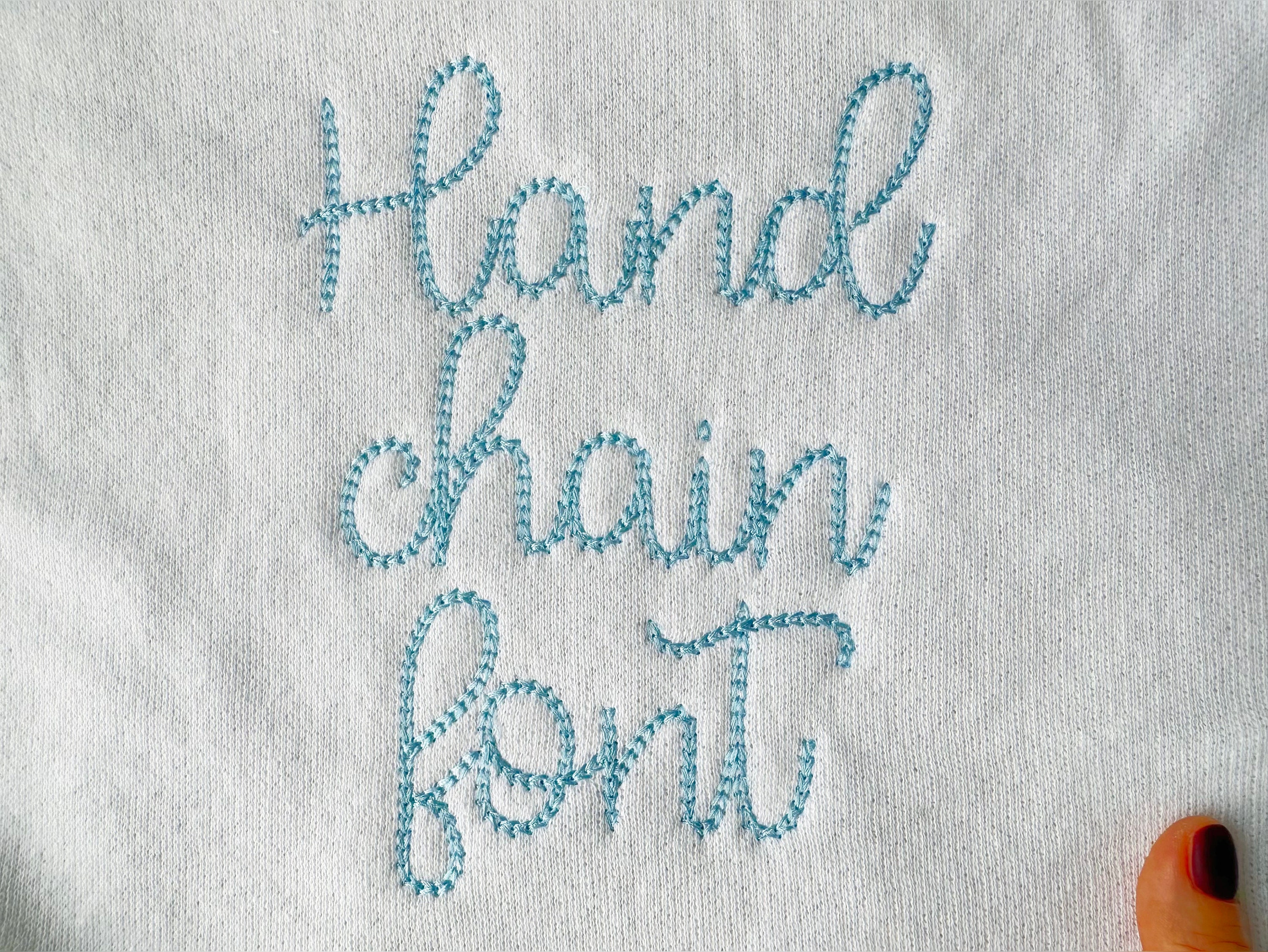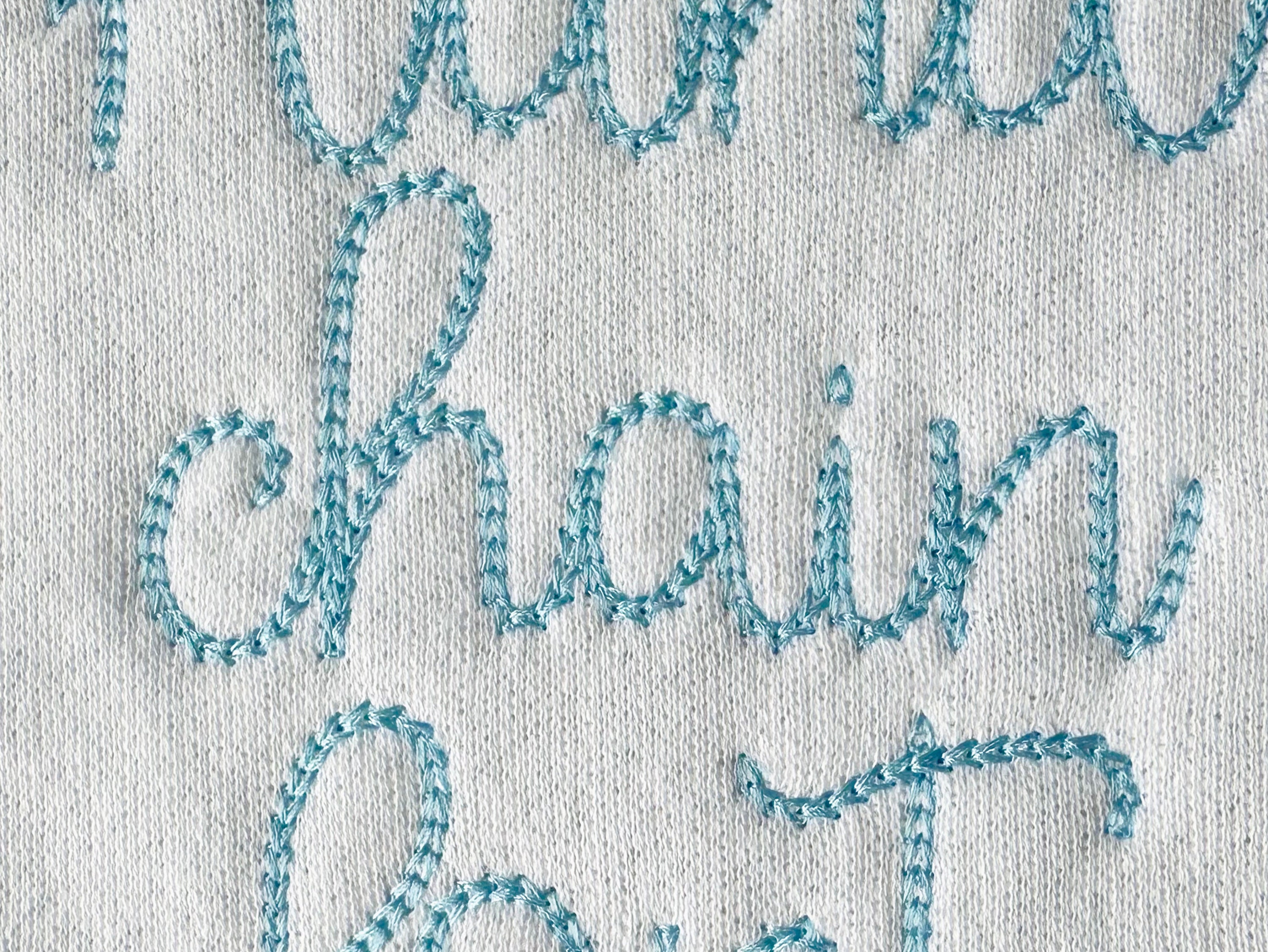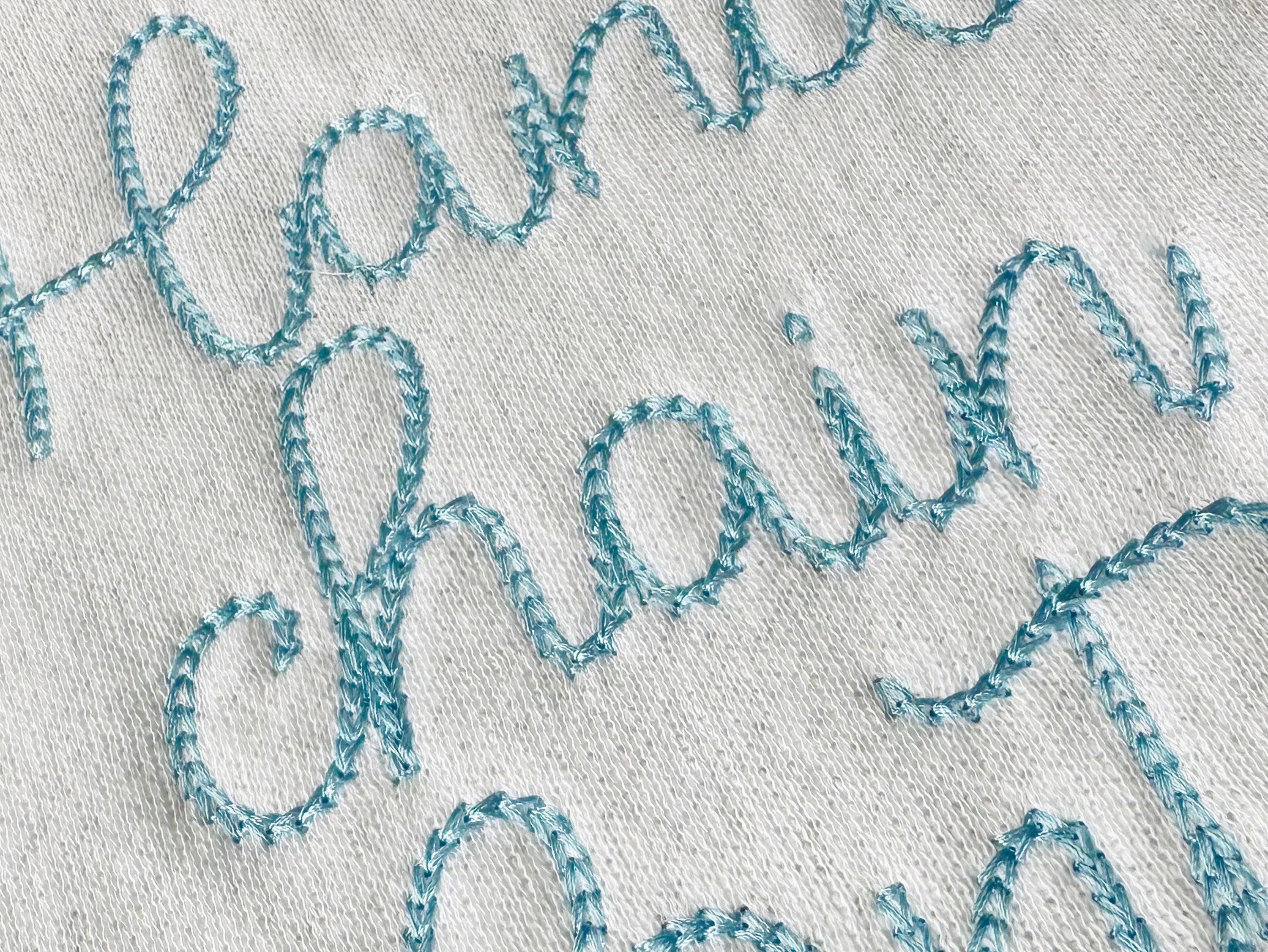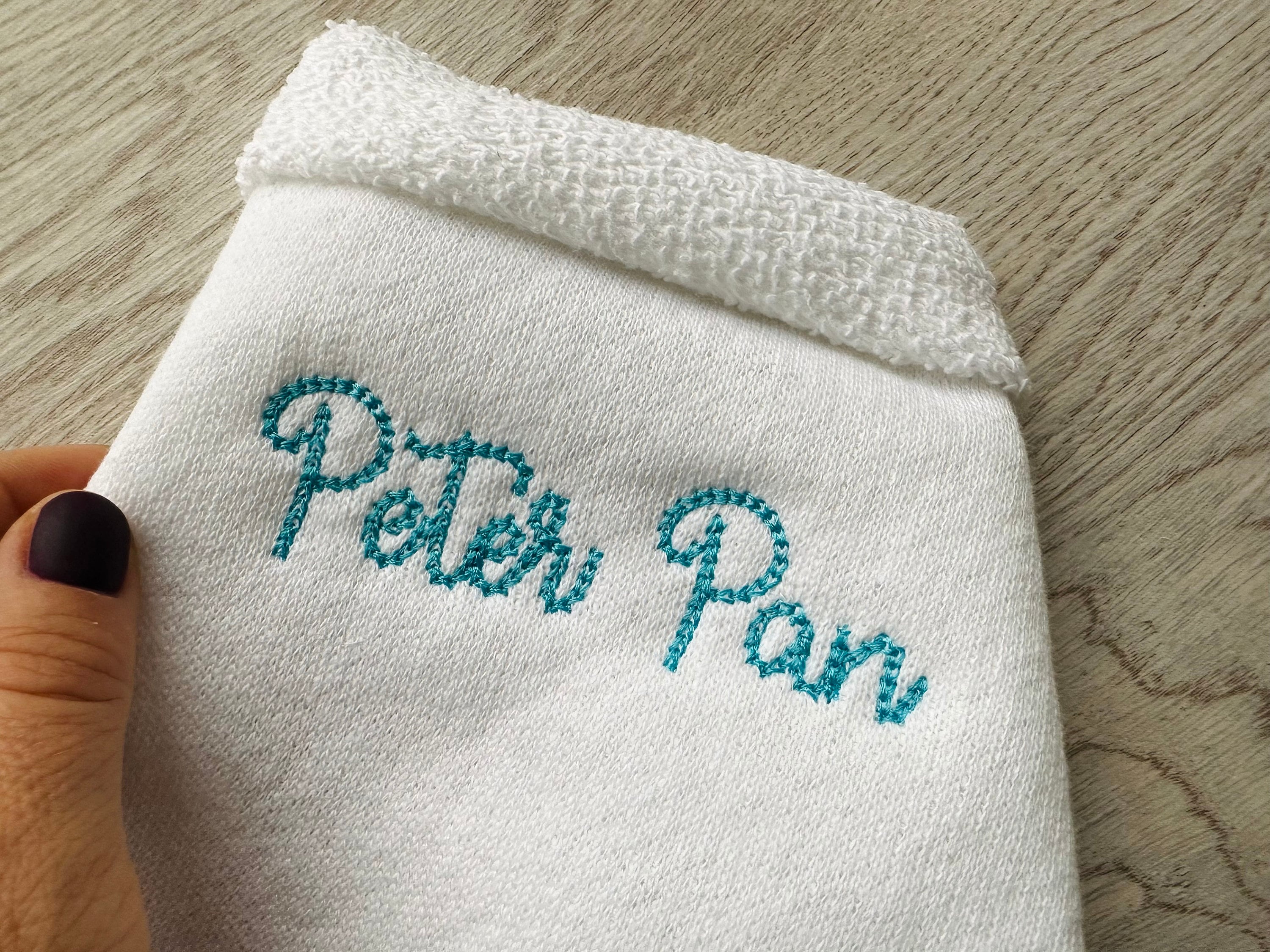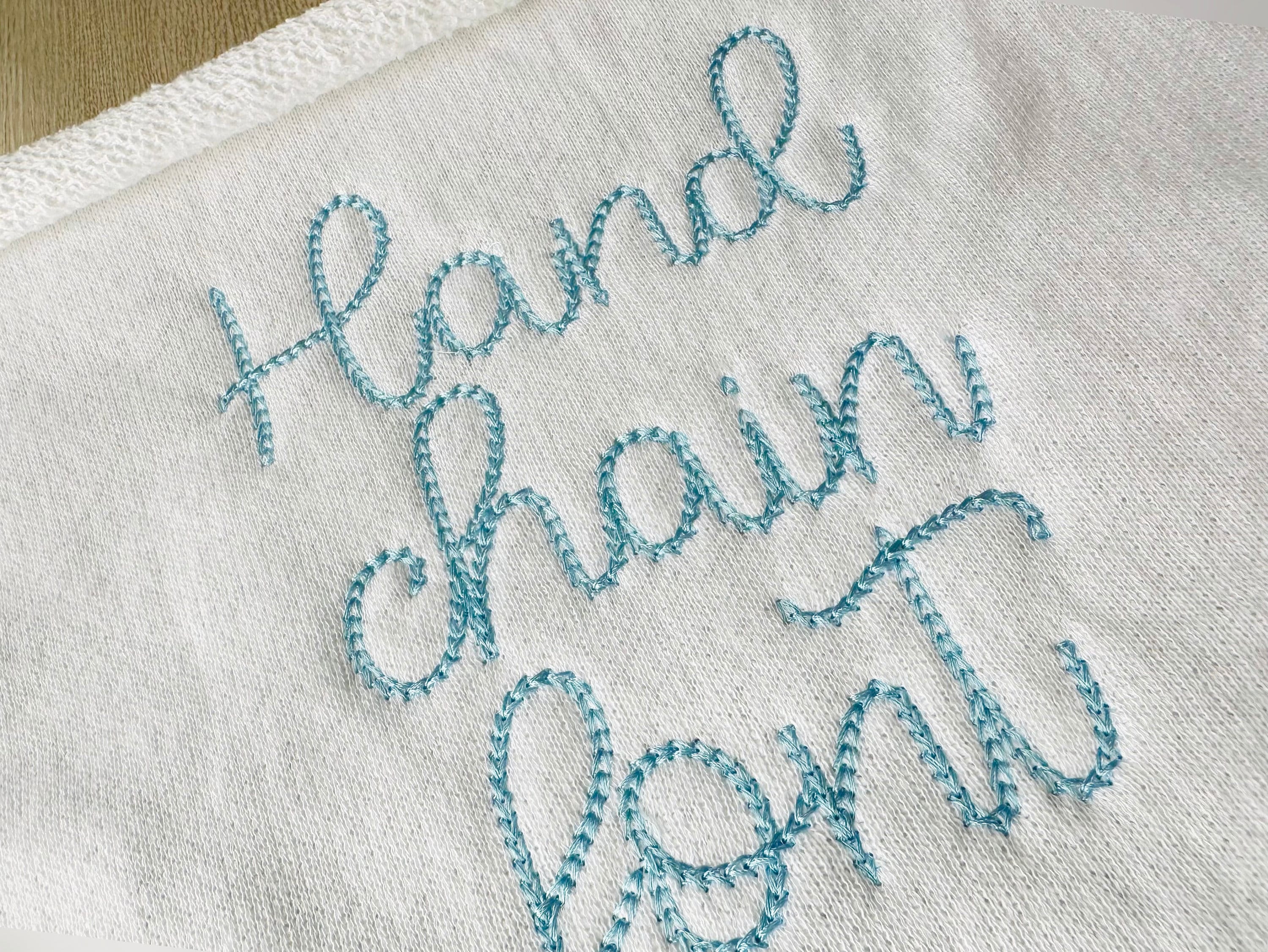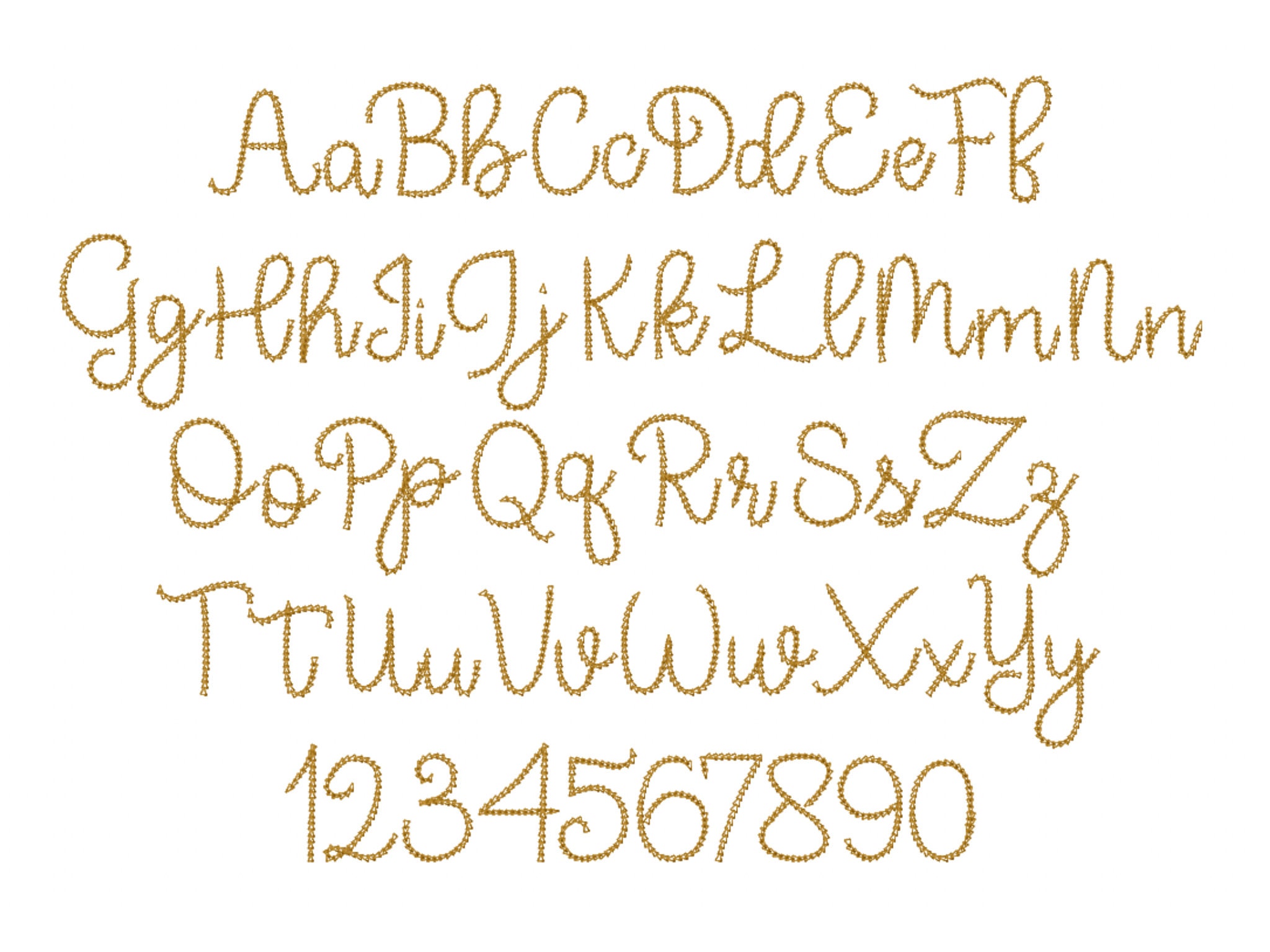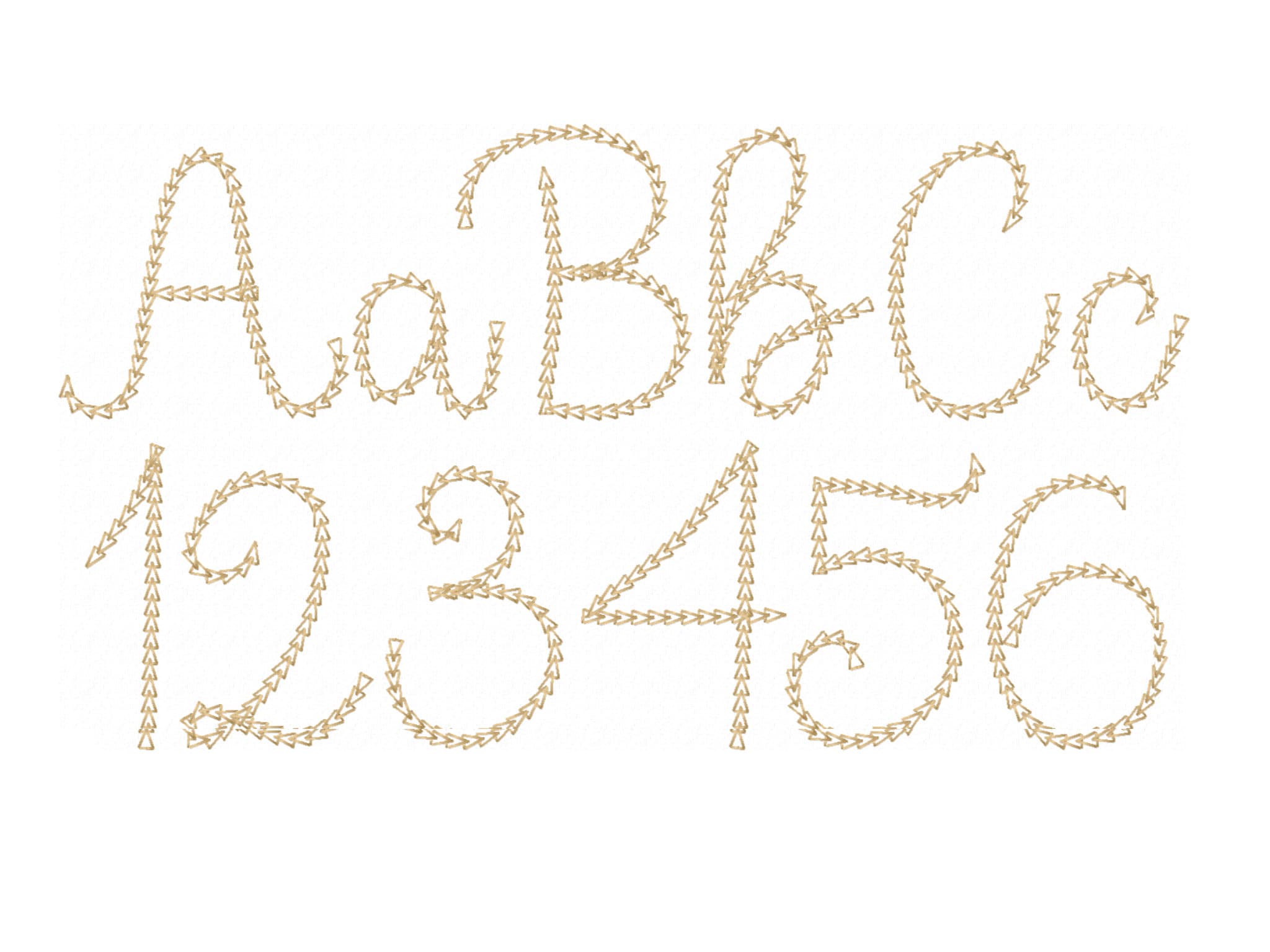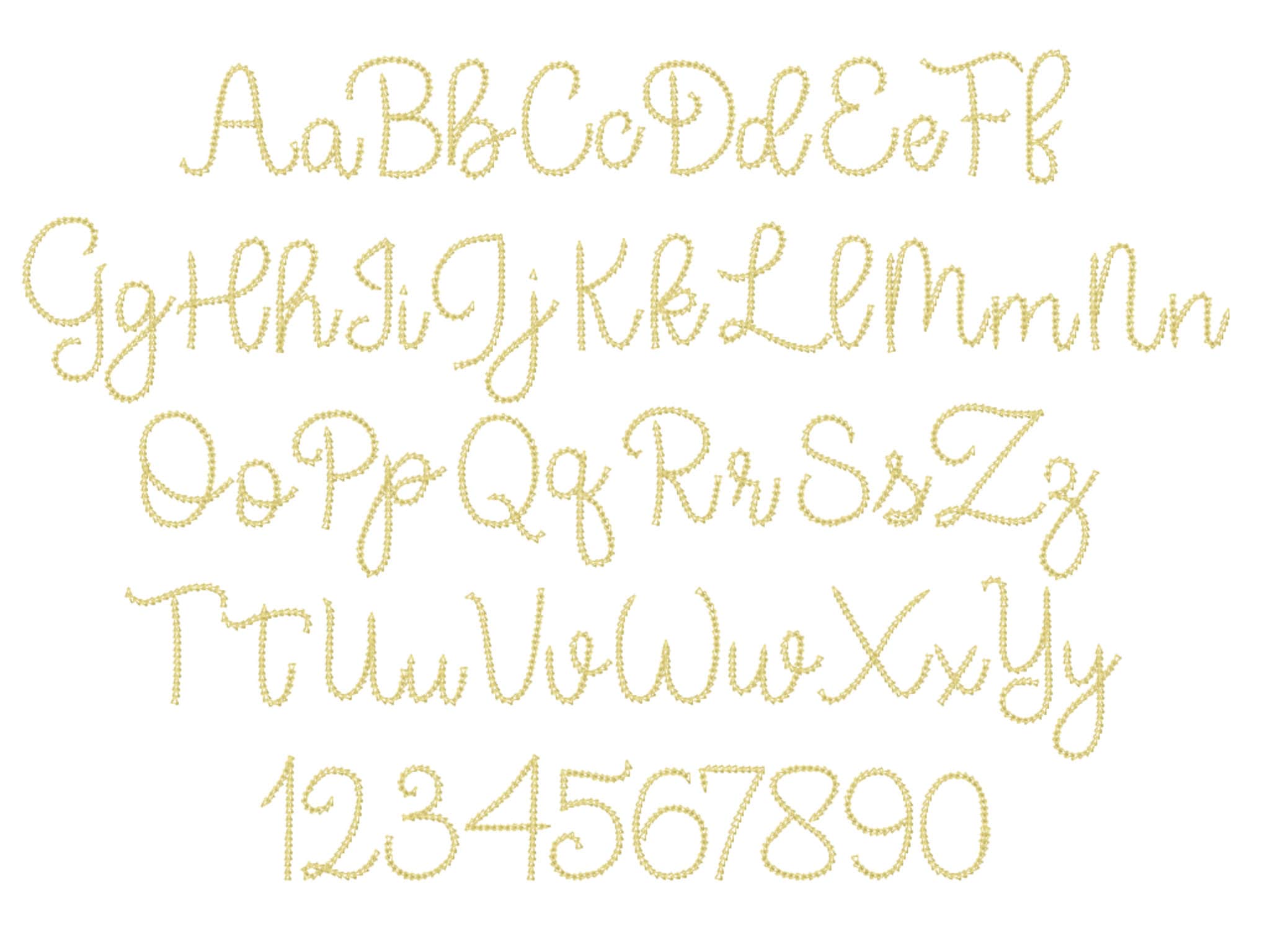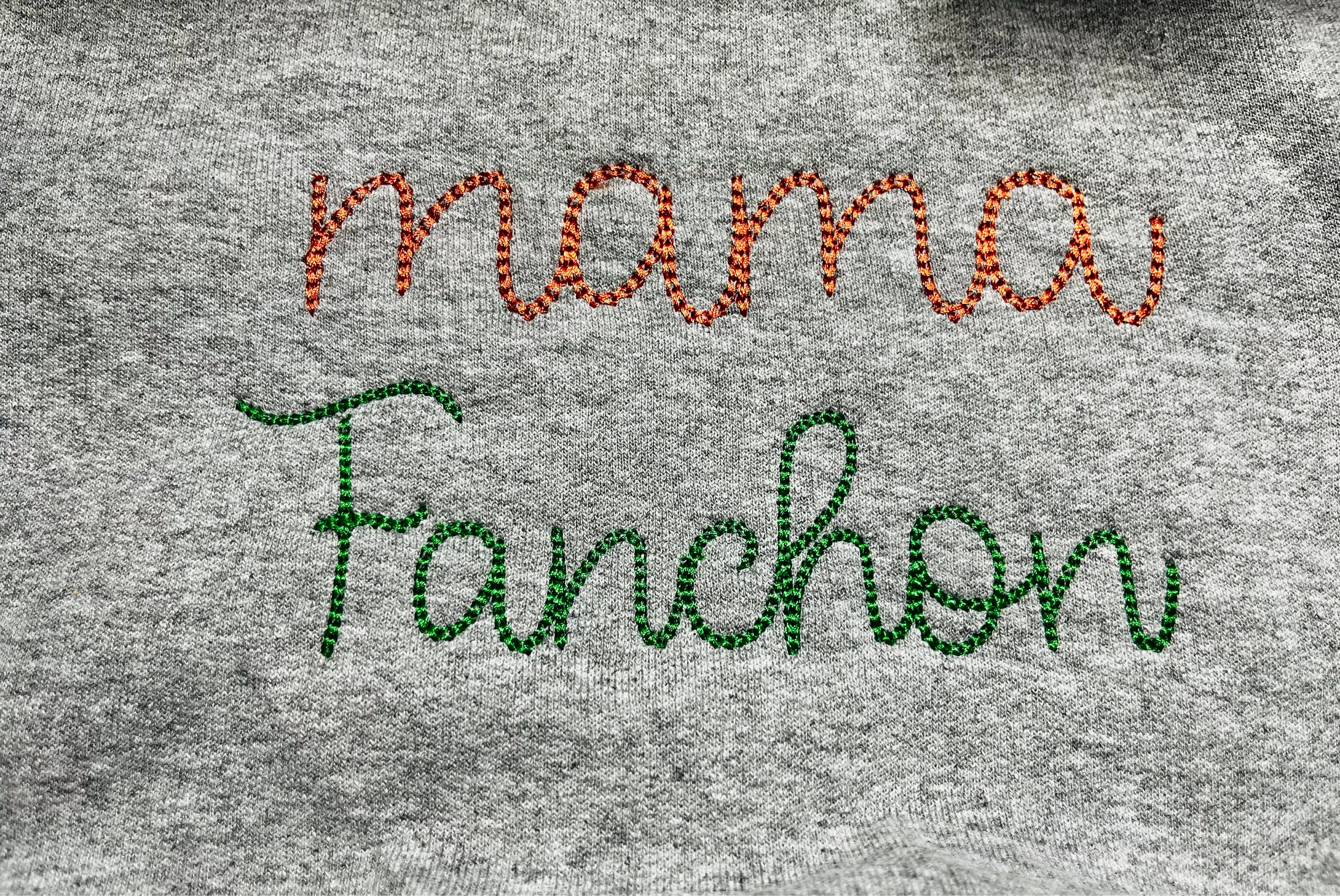
Quick light stitch Chain FONT machine embroidery designs in assorted mini sizes alphabet letters playful kids link chain name, BX included
Whole alphabet A-Z uppercase and lowercase letters.
UPDATED on Apr 14, 2025: Considering the requests, the punctuation was added - accent, ampersand, apostrophe, comma, dash, dot, hashtag, double prime, question mark, slash, sygn.